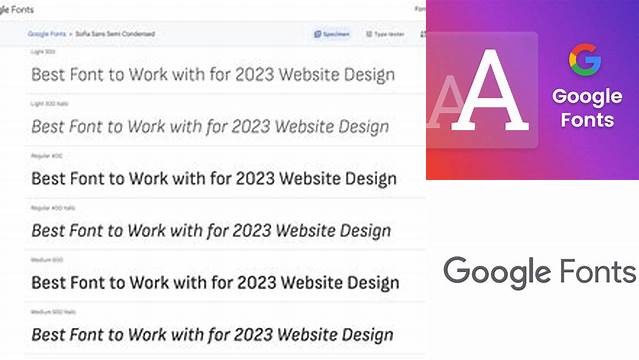
Google Fonts For Websites: 2026 Typography Trends
In the ever-evolving world of web design, Google Fonts for Websites continue to play a pivotal role in shaping the visual identity of websites. As we approach 2026, it's crucial to stay updated with the latest trends and best practices in typography to ensure your website remains modern, engaging, and user-friendly. Let's dive into the world of Google Fonts and explore how you can leverage them to create stunning online experiences.
Why Google Fonts Matter
Typography is more than just choosing a font; it's about creating a visual hierarchy, enhancing readability, and conveying the right tone and message. Google Fonts offer a vast library of free, open-source fonts that can be easily integrated into your website. This means you have access to a diverse range of styles, from classic serifs to modern sans-serifs, without incurring licensing costs. Using the right fonts can significantly improve your website's aesthetic appeal and user experience, making it more engaging and professional.
Beyond aesthetics and accessibility, Google Fonts also play a crucial role in branding. The fonts you choose become part of your brand's visual identity, conveying its personality and values. A modern, minimalist font might suit a tech startup, while a classic, elegant font might be better for a luxury brand. By carefully selecting fonts that align with your brand's image, you can create a cohesive and memorable online presence. In 2026, the importance of visual branding will continue to grow, making typography a critical element of your overall marketing strategy. Keeping up with the latest font trends and understanding how different fonts impact your audience's perception is essential for staying competitive.
Top Google Font Trends in 2026
As we look ahead to 2026, several key trends are emerging in the world of Google Fonts. These trends reflect the evolving preferences of users and the ongoing advancements in web design. By understanding these trends, you can make informed decisions about your website's typography and ensure it remains fresh and relevant.
Variable Fonts
Variable fonts are a significant advancement in typography, allowing for greater flexibility and customization. Unlike traditional fonts, which have separate files for each weight and style (e.g., regular, bold, italic), variable fonts contain all variations within a single file. This results in smaller file sizes and faster loading times, which are crucial for website performance. In 2026, variable fonts will become even more prevalent as designers seek to optimize their websites for speed and efficiency.
The main advantage of variable fonts is their ability to provide a wide range of weights, widths, and styles within a single font file. This means you can fine-tune the appearance of your text to match your specific design needs. For example, you can adjust the font weight from thin to extra-bold, or the width from condensed to expanded, all without loading additional font files. This level of control allows for more nuanced and creative typography. Moreover, variable fonts enhance the responsiveness of your website. As screen sizes and resolutions vary across devices, variable fonts can adapt seamlessly, ensuring your text looks crisp and clear on any display. This is particularly important in a mobile-first world, where users access websites on a variety of devices. The adoption of variable fonts also aligns with the growing focus on web accessibility. By providing a wide range of weights and styles, variable fonts make it easier to create legible and readable text for users with visual impairments. Designers can adjust the font settings to optimize readability without compromising the overall aesthetic of the website. In 2026, expect to see more websites leveraging variable fonts to create dynamic, responsive, and accessible typography.
Bold and Expressive Typefaces
In recent years, there has been a shift towards bold and expressive typefaces that make a strong visual statement. This trend is expected to continue in 2026, with designers using larger, more impactful fonts to grab the attention of visitors. Bold fonts are particularly effective for headlines, headings, and call-to-action buttons, as they immediately draw the eye and convey a sense of importance. However, it's essential to use them judiciously to avoid overwhelming the reader.
The use of bold typefaces reflects a broader trend towards minimalism and simplicity in web design. By using a few key fonts in a bold and impactful way, designers can create a clean and uncluttered look that is both visually appealing and easy to navigate. Bold fonts also work well in conjunction with other design elements, such as whitespace and imagery, to create a balanced and harmonious composition. Furthermore, expressive typefaces can convey a brand's personality and values. A bold, modern sans-serif font might be used to communicate innovation and confidence, while a more playful or quirky font could be used to create a sense of fun and creativity. The choice of typeface should align with the overall brand identity and the message you want to convey to your audience. In 2026, expect to see designers experimenting with a wider range of bold and expressive typefaces, pushing the boundaries of traditional typography. This trend will likely be driven by the increasing importance of visual storytelling and the need to create memorable and engaging online experiences.
Pairing Serif and Sans-Serif Fonts
Pairing serif and sans-serif fonts is a classic technique that continues to be popular in web design. This approach involves using a serif font for headings and a sans-serif font for body text, or vice versa. The contrast between the two font styles creates visual interest and enhances readability. Serif fonts, with their small decorative strokes, tend to convey a sense of tradition and elegance, while sans-serif fonts, with their clean, minimalist lines, are often associated with modernity and simplicity.
The key to successfully pairing serif and sans-serif fonts is to choose fonts that complement each other. This means considering factors such as weight, style, and x-height (the height of the lowercase letters). Ideally, the fonts should have similar proportions and spacing to create a cohesive look. For example, you might pair a bold serif font with a lighter sans-serif font, or vice versa. Alternatively, you can use different weights of the same font family to create a subtle contrast. Pairing fonts effectively requires a good understanding of typography and design principles. It's essential to experiment with different combinations to find what works best for your website's overall aesthetic. In 2026, expect to see designers continuing to refine this technique, using it to create visually appealing and highly readable websites. The combination of serif and sans-serif fonts can add depth and personality to your typography, making your content more engaging and accessible.
In conclusion, Google Fonts will continue to be a vital resource for web designers in 2026. By staying informed about the latest trends and best practices in typography, you can leverage Google Fonts to create stunning, engaging, and user-friendly websites. Embracing variable fonts, bold typefaces, and classic font pairings, while also optimizing font loading, will ensure your website remains competitive and visually appealing in the years to come. As the web evolves, typography will continue to play a crucial role in shaping the online experience, making it essential to stay updated and adapt to new trends and technologies.